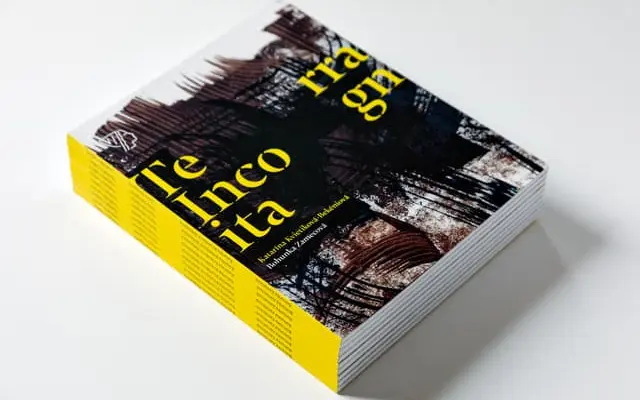
Typonine Stencil specimen from Typotheque
A stencil type system with four weights, condensed cuts and several sub-families including the italic-only Thema and the dual-variant Thema Moderato.
The system spans a core stencil family in Regular, Medium and Bold with matching condensed cuts, alongside Thema, which provides Light through Bold italics, and Thema Moderato, which offers A and B variants across four weights with and without stencil treatment. Each weight in the main family is named after a city, from Amsterdam to Fortaleza. Exhibition and catalogue work, as seen in the Terra Incognita catalogue, appears to be the intended territory.
A stencil typeface system with multiple weights and widths, designed for display use; the stencil construction defines its category, while the range of weights and condensed cuts give it extended utility across print and exhibition contexts.